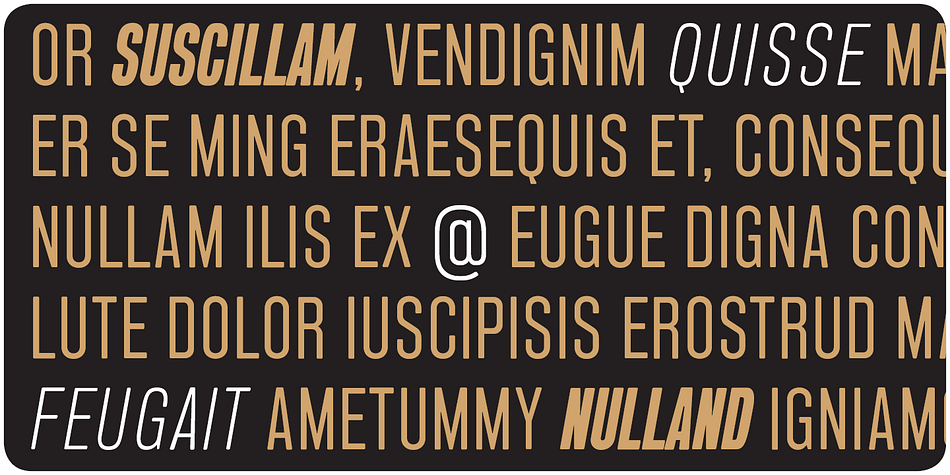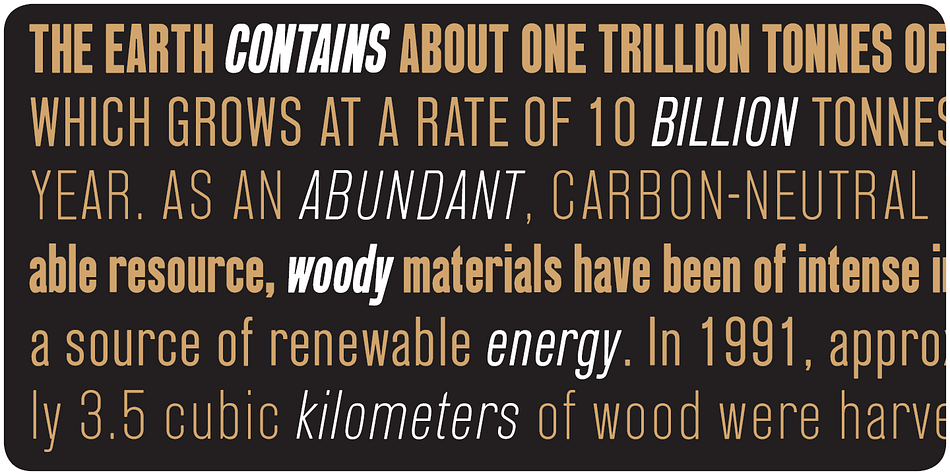
Blop 11
Designed by Paweł Osial, Blop 11 is a display sans font family. This typeface has six styles and was published by Osialus.
Blow 11 is a geometric sans-serif type family, consisting of 3 weights and matching italics.
Blow 11 Bold is inspired by 1800s-style wood, poster typeface.
Owing to its rounded terminals, Blop preserves natural organic quality of wood typeface.
The Regular and Light versions are contemporary original projects.
Blow 11 is well-suited for headlines and short text.